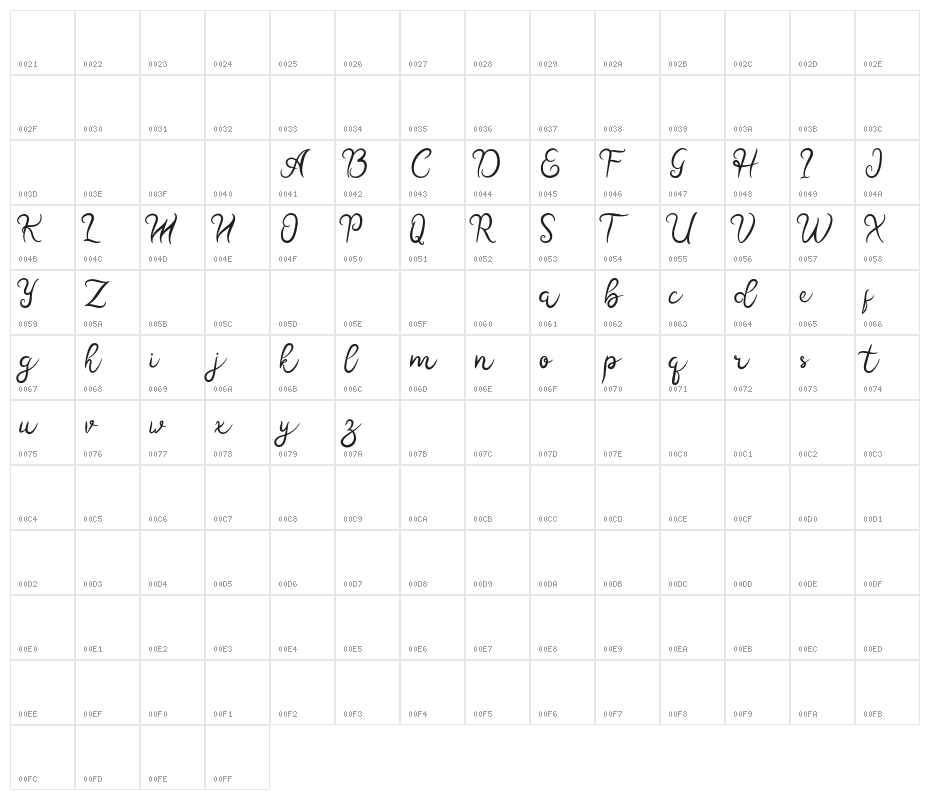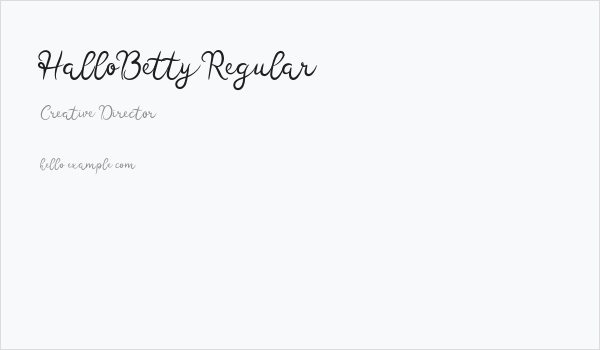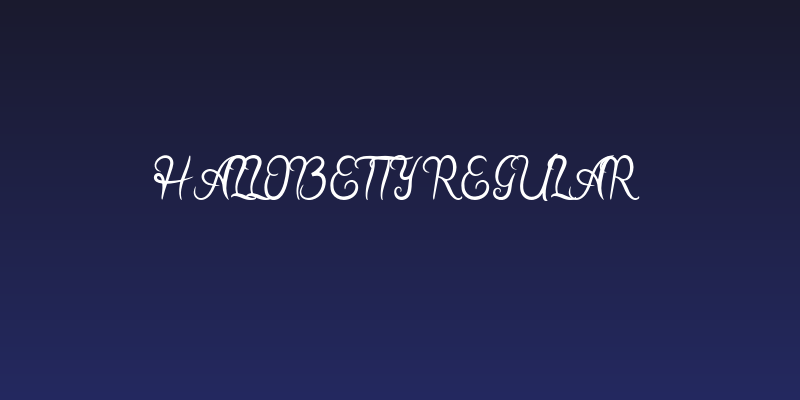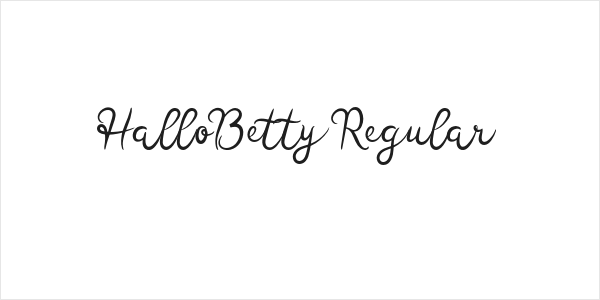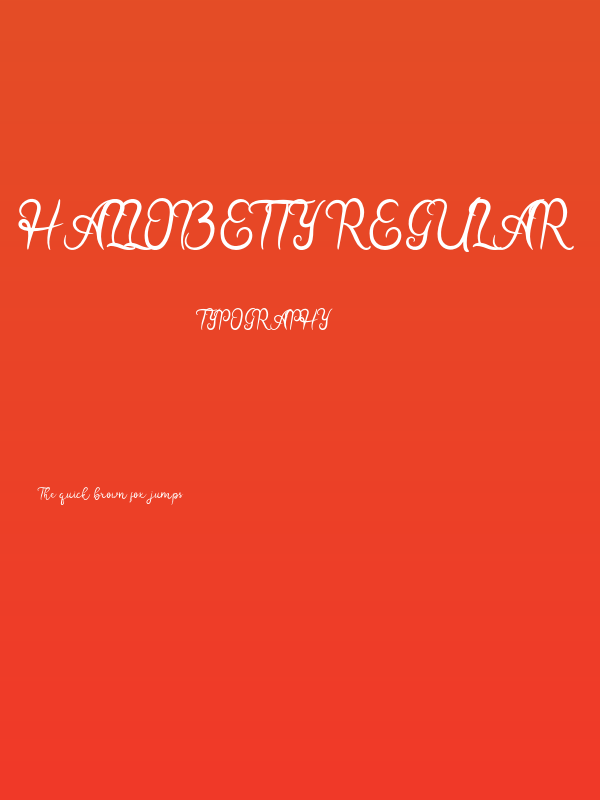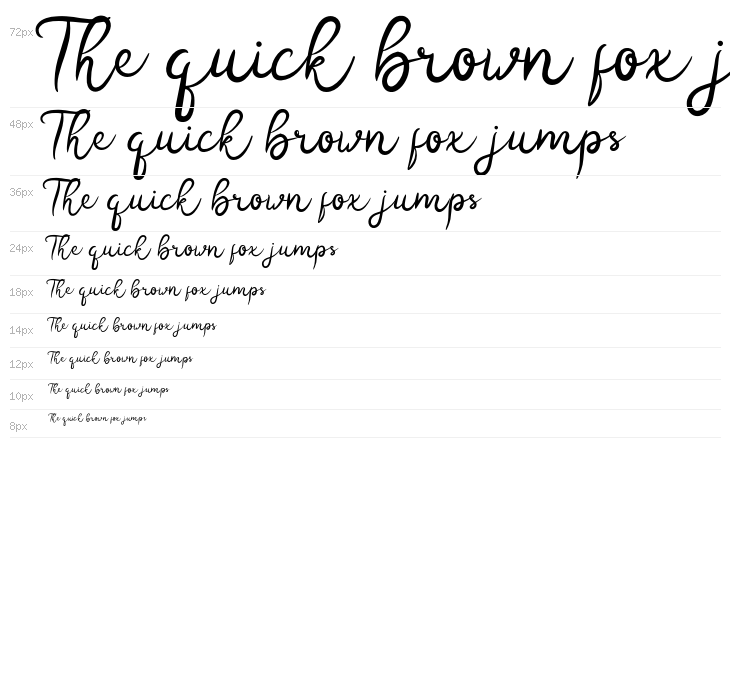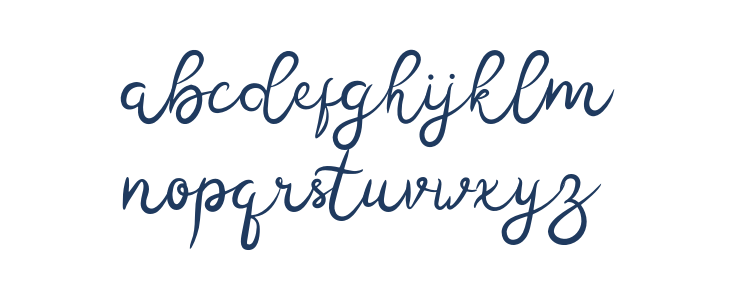
HalloBetty-Regular Font
HalloBetty-Regular Description
This font exudes a playful and elegant charm, characterized by its flowing, cursive style. The letters are interconnected, creating a seamless and fluid appearance that is both sophisticated and approachable. The uppercase letters are bold and expressive, with exaggerated loops and curves that add a touch of whimsy. The lowercase letters maintain the same fluidity, with a slightly more restrained design that enhances readability. The overall design is consistent, with each character maintaining a balanced proportion and a harmonious flow. This font is perfect for projects that require a personal touch, such as invitations, greeting cards, or branding materials that aim to convey warmth and creativity.
| Proposed Projects | Ideal for invitations, greeting cards, and creative branding materials. |